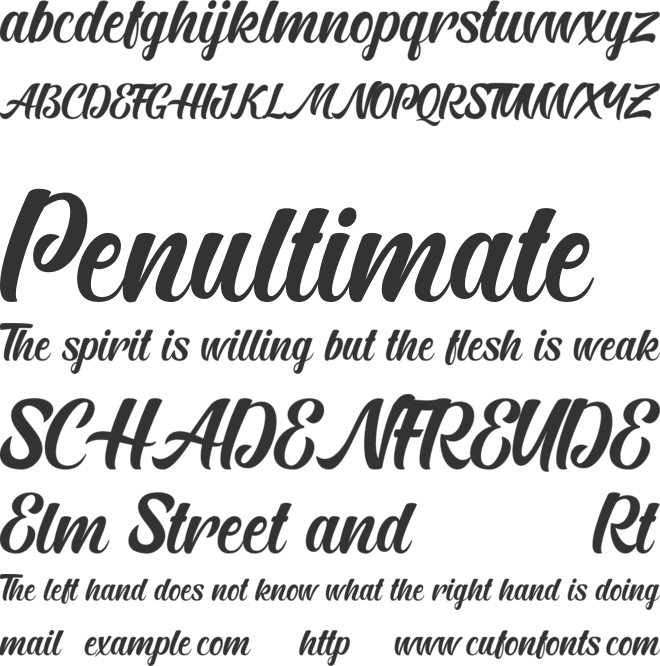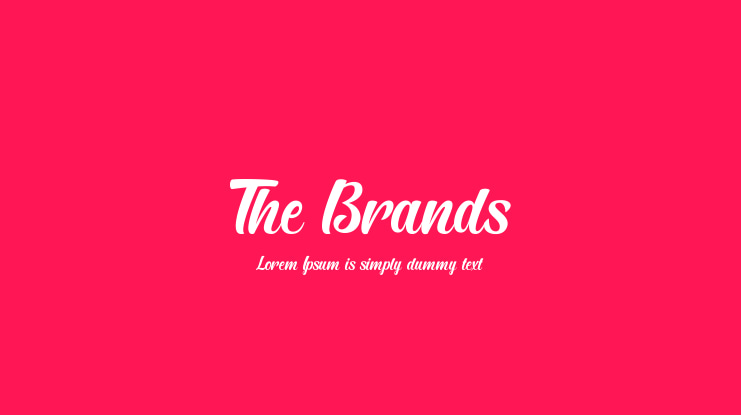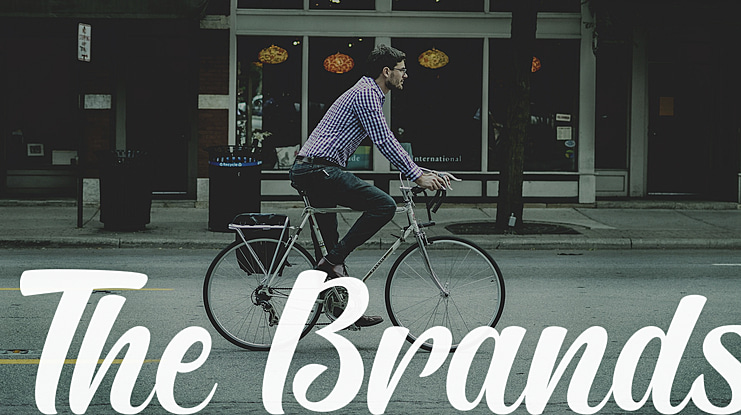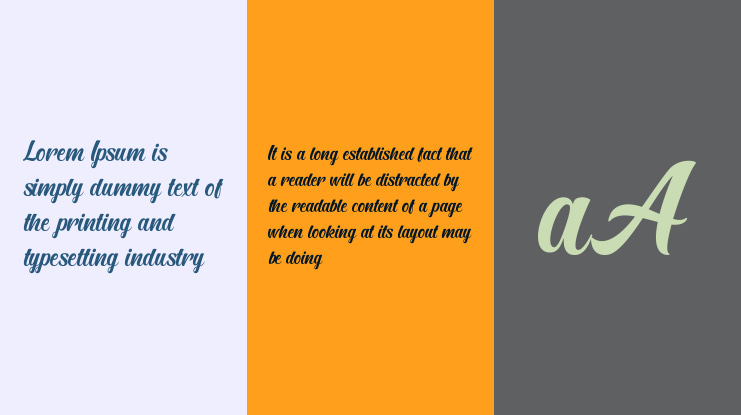
Introducing a new font called The Brands, I specially designed this font to make it suitable for branding, logos, product packaging, labels, & others.
The Brands Includes uppercase, lowercase, multilingual support, punctuations, ligatures, stylisticset & swashes, all of which you can manage with software that supports the OpenType support feature. Like Adobe Indesign, Adobe Illustrator CS, Adobe Photoshop CC, and Corel Draw.